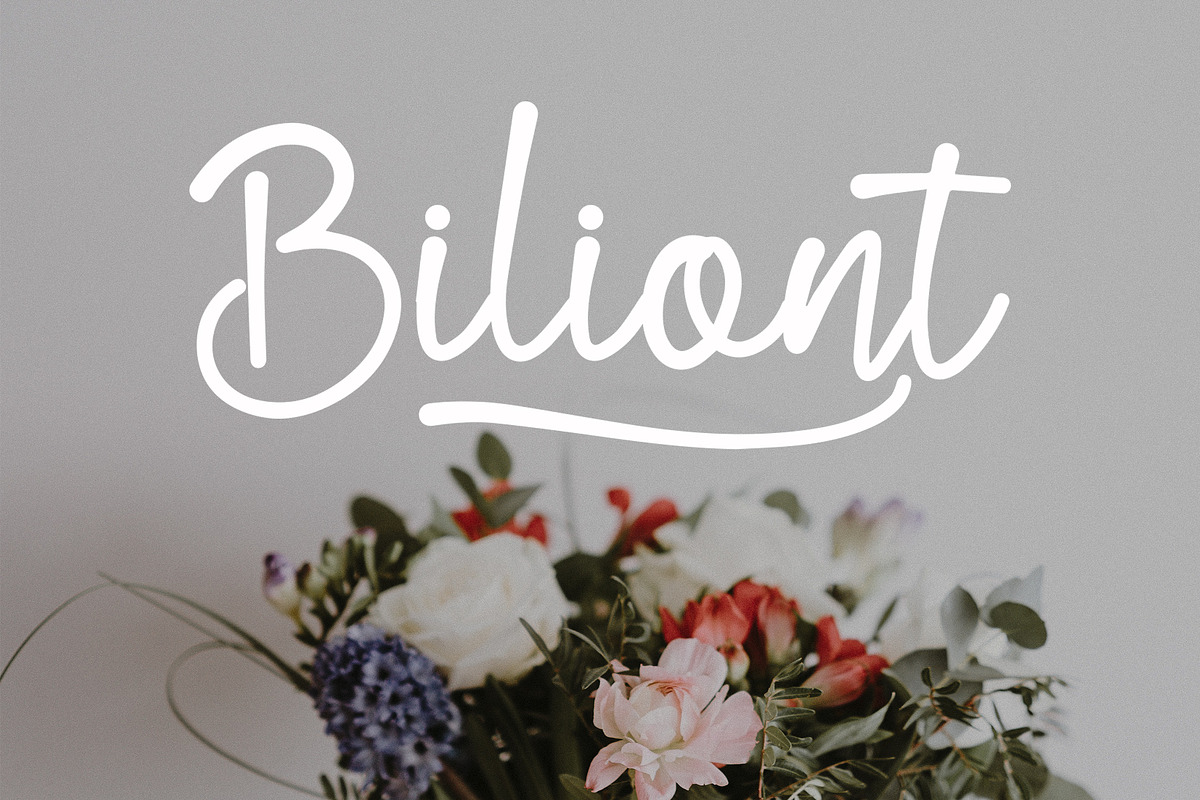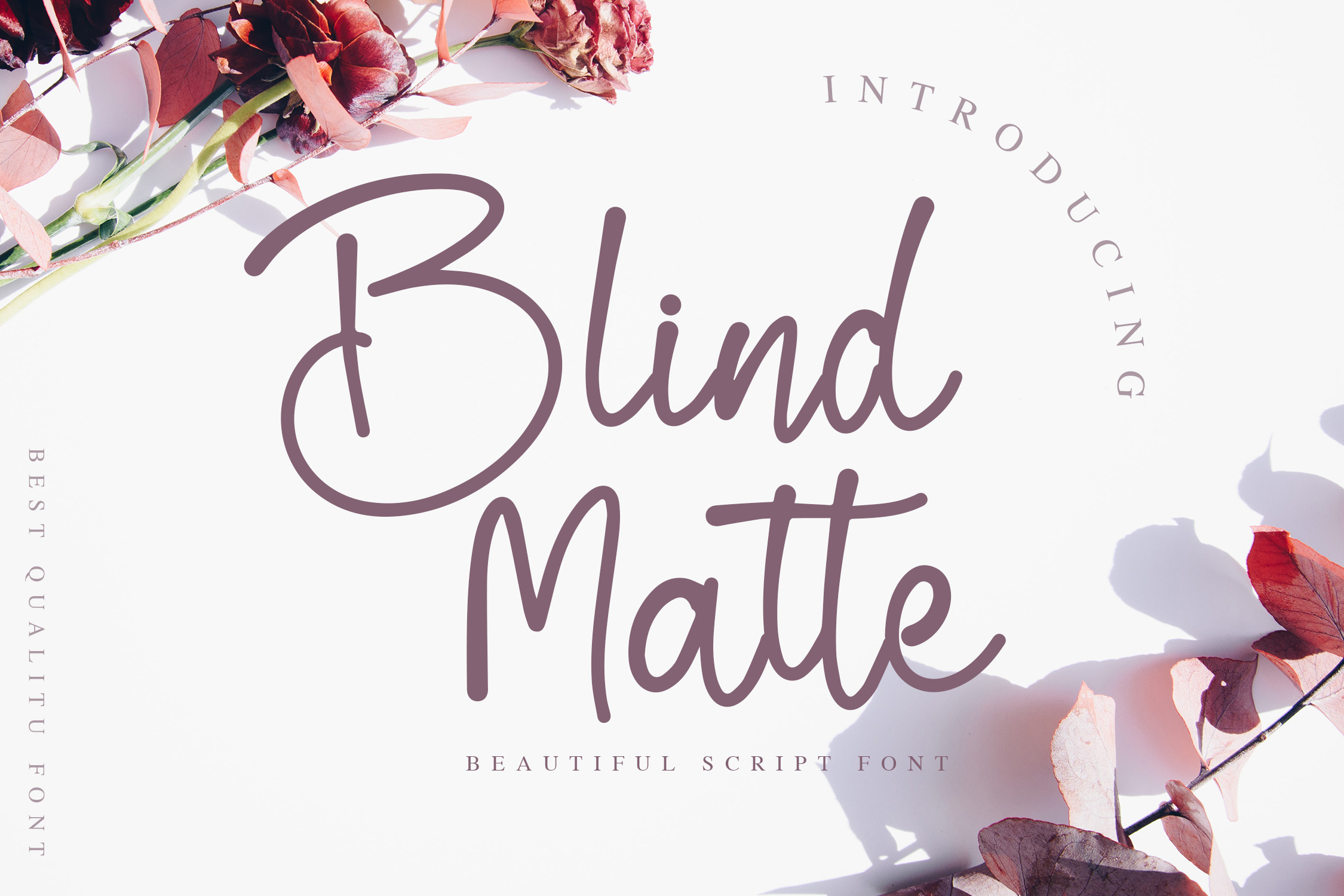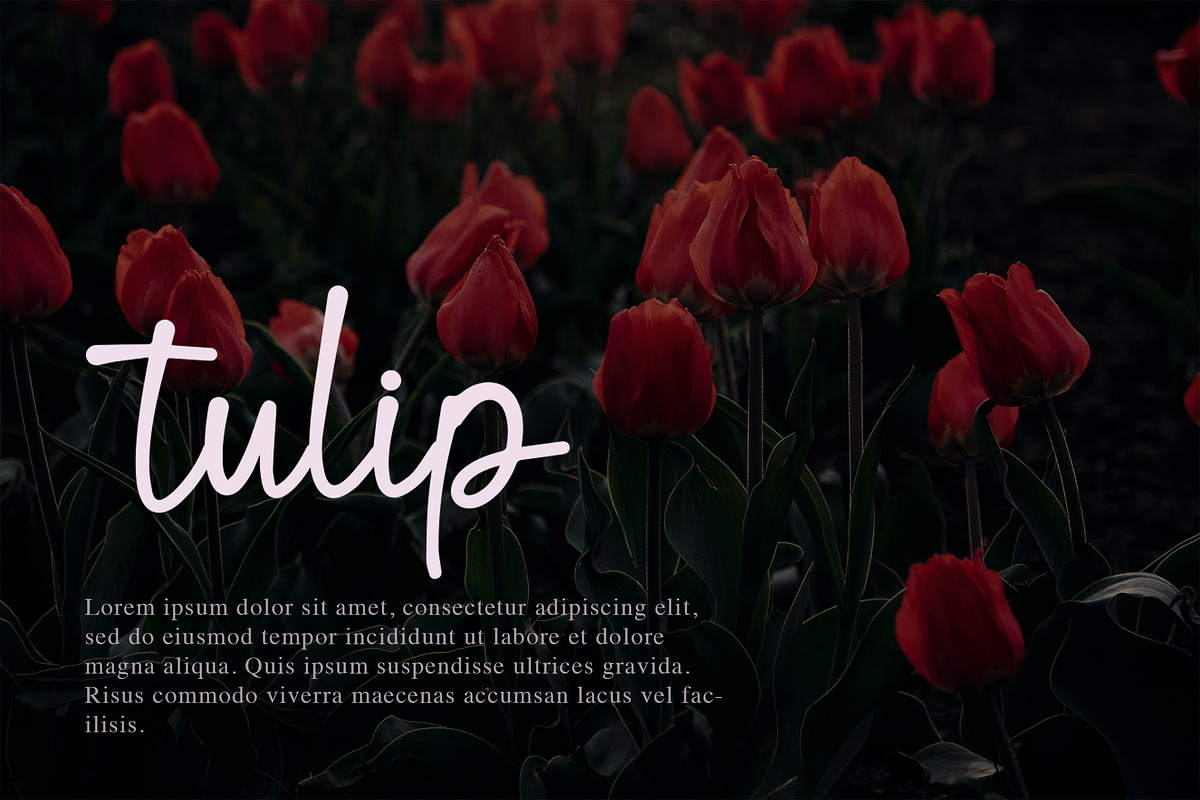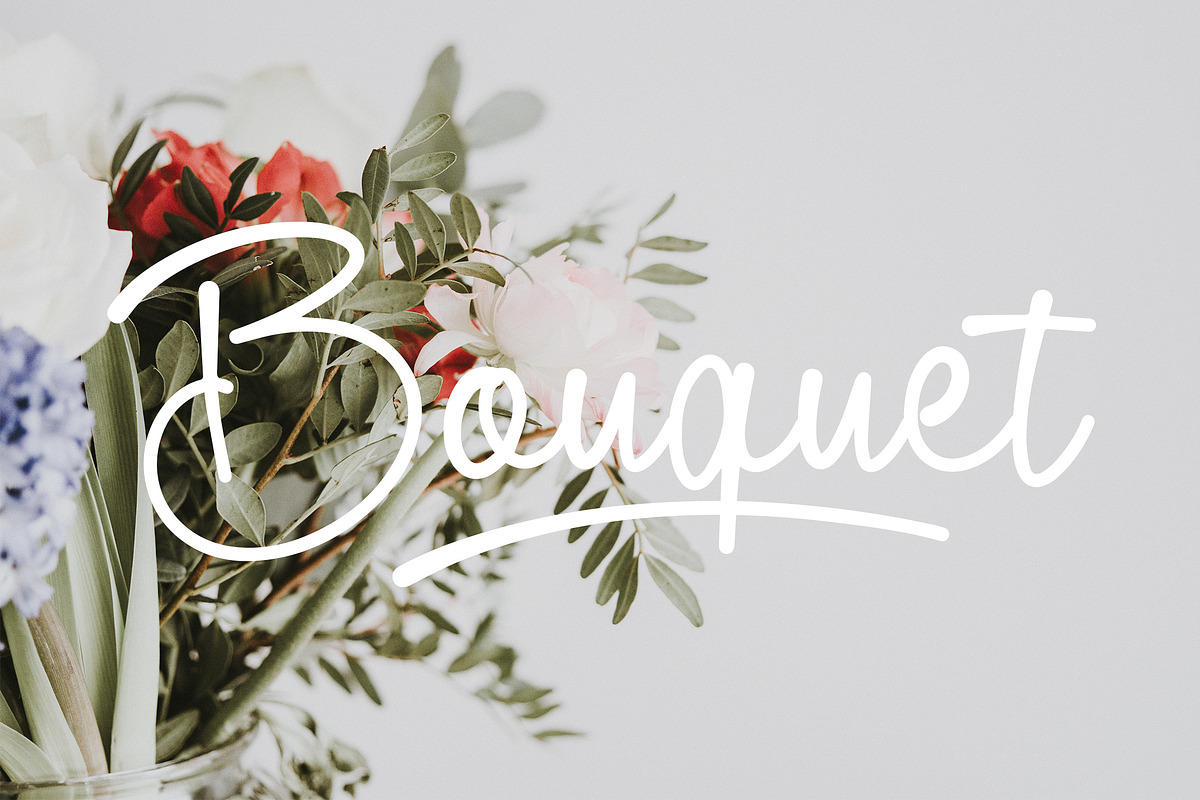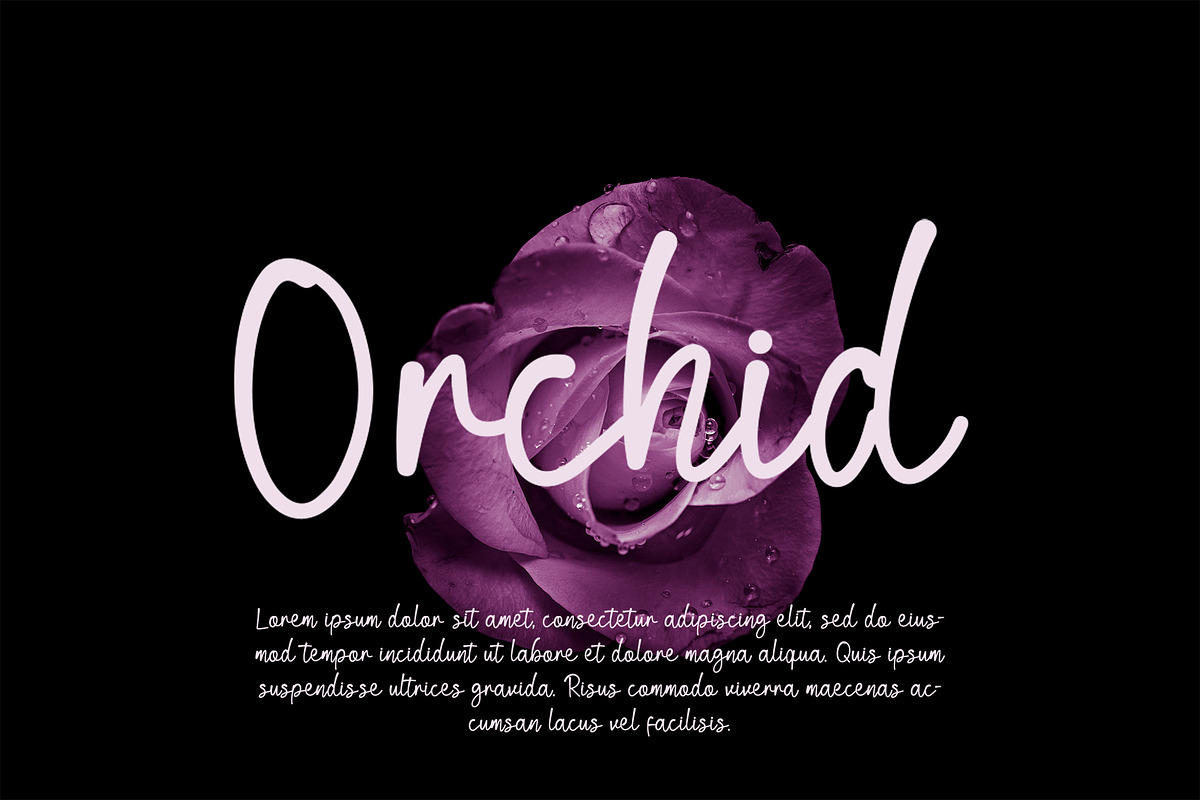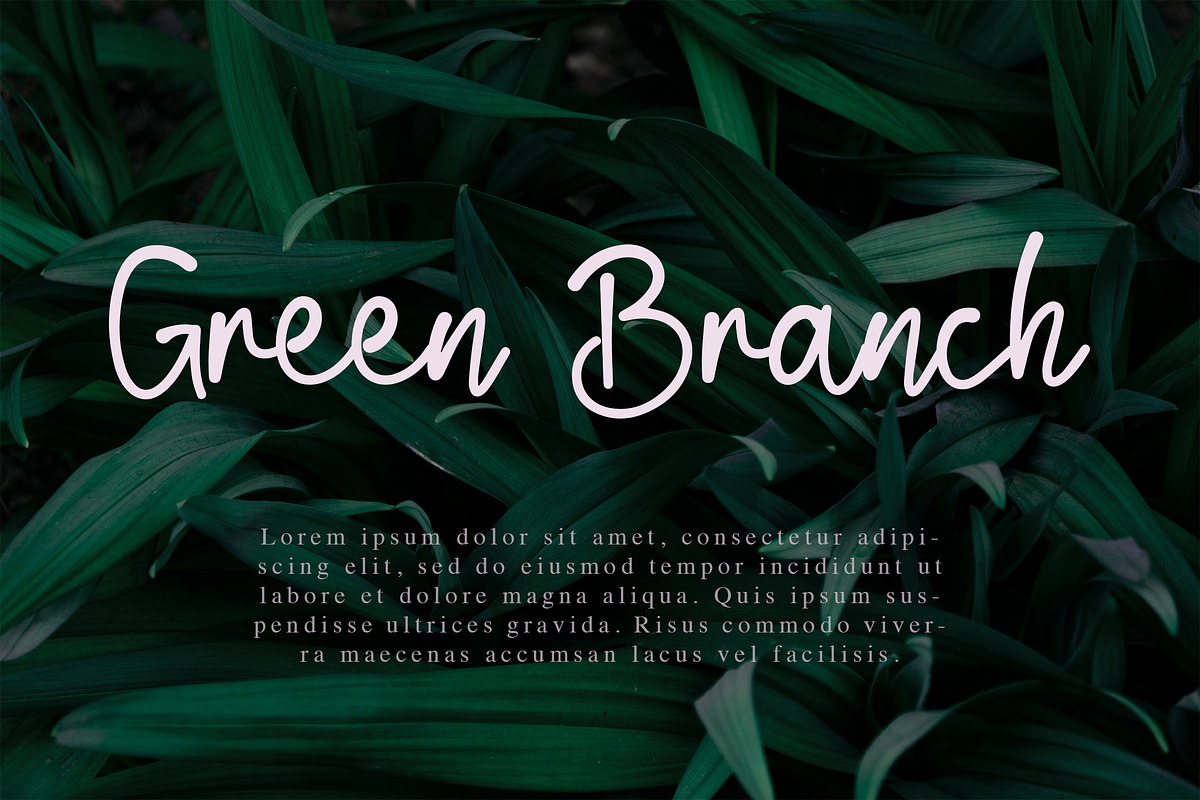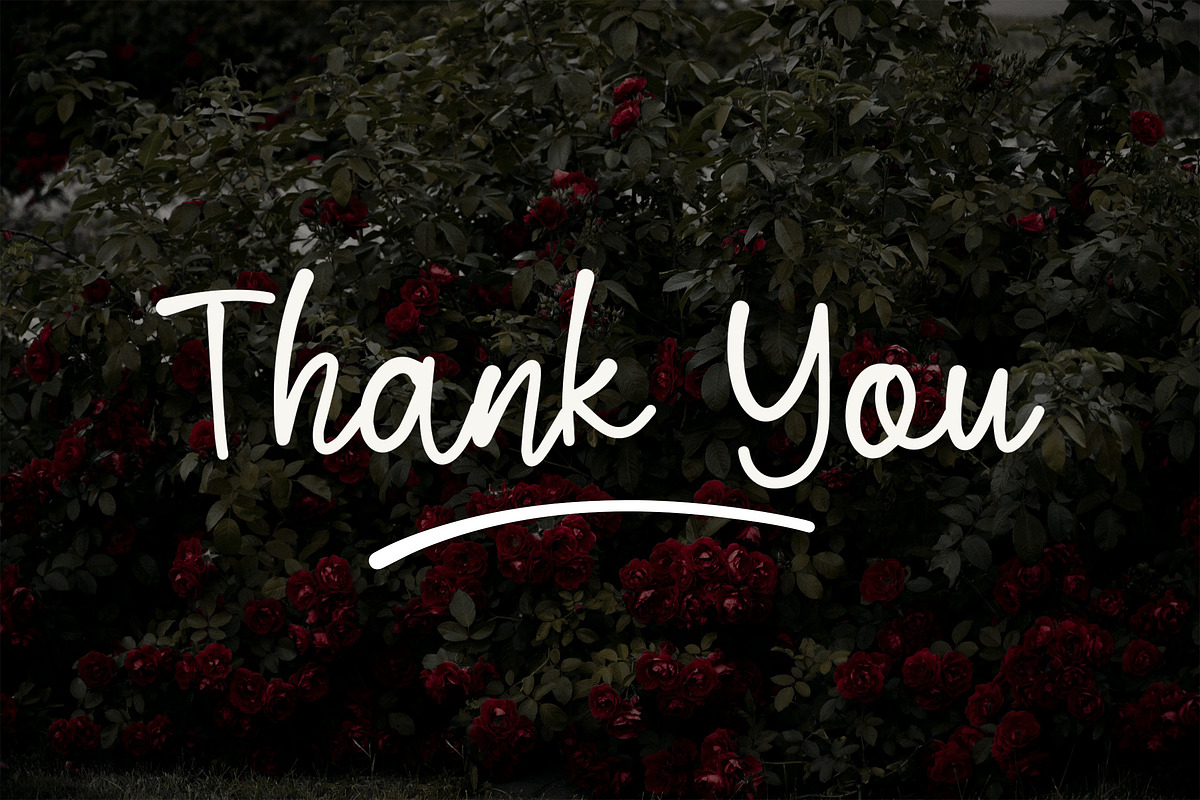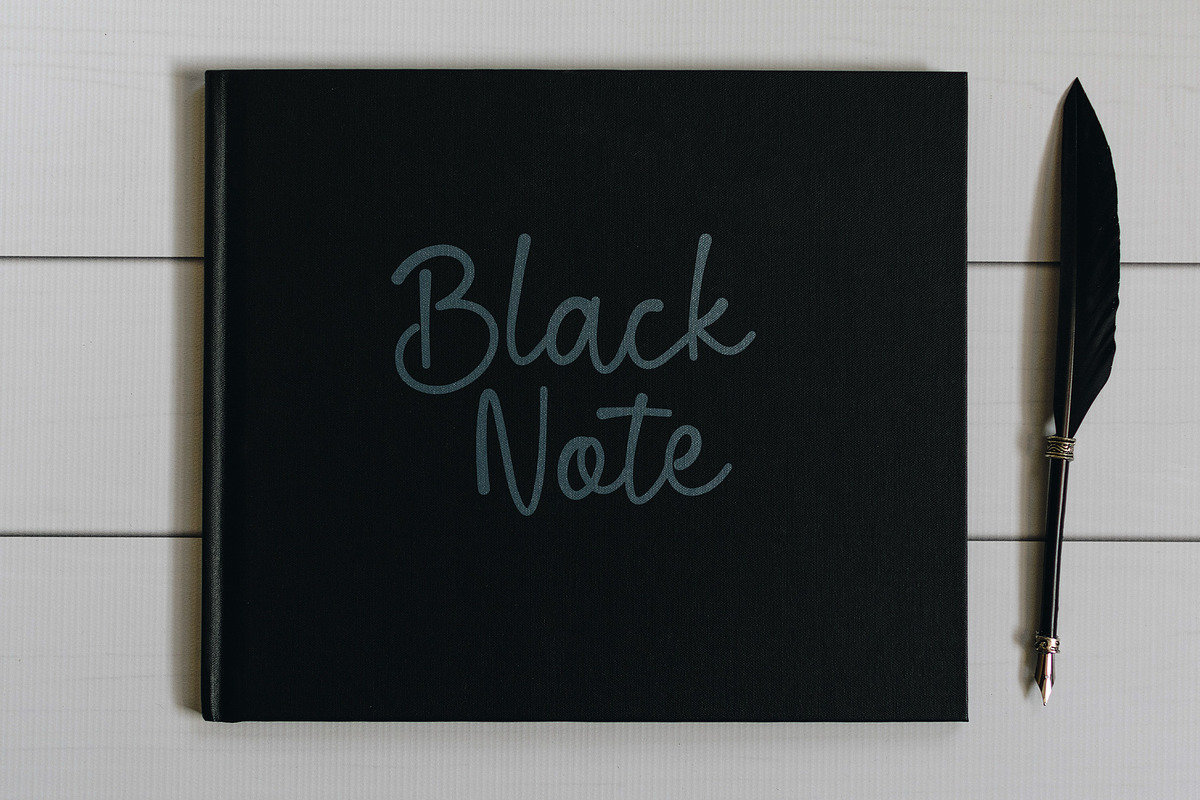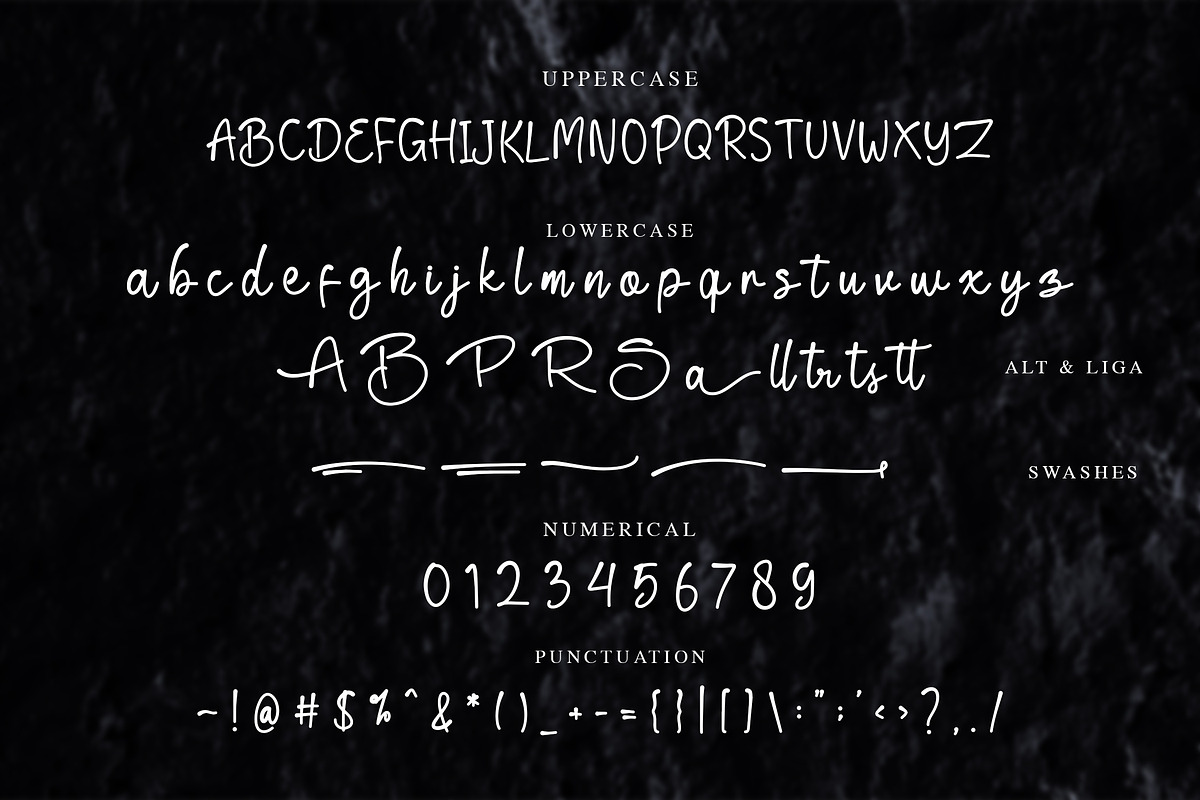
Blind Matte - Script Font
Blind Matte is a beautiful modern script font with a signature calligraphic style. Is a font style that is made with scratches and curvature shapes font characters are very beautiful. Can be applied to support the graphic appearance of the product to be more attractive and unique. This font is suitable for making covers, feminine logo designs, shirt designs, and other graphic needs. We are very grateful for your visit and download for this font
Blind Matte font with uppercase characters A-Z, lowercase characters a-z, punctuation, swashes, stylistic alternate and ligature characters that enhance this font shape.
-Ligature
-Stylistic Alternate
-Swashes NOTE : All feature above included in one font file